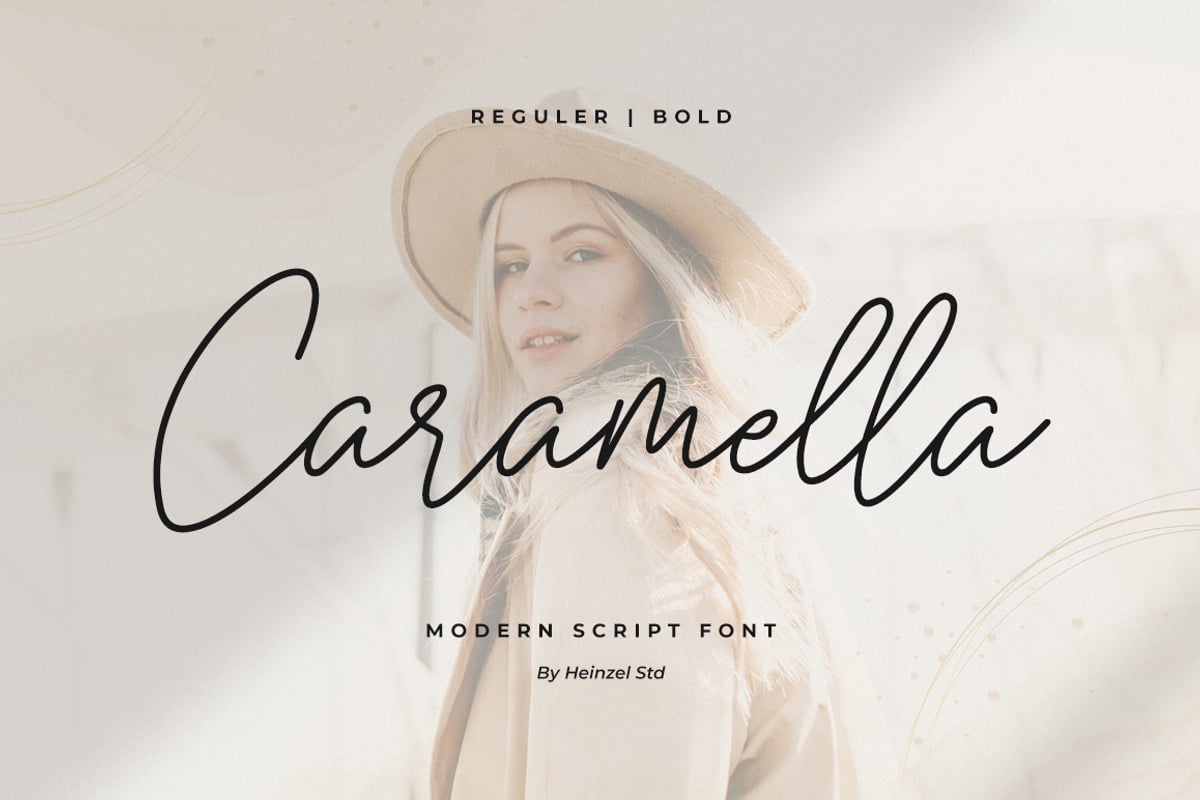
Caramella Modern Script Font
Caramella is the effortlessly elegant modern script font your designs have been waiting for.
With its relaxed, flowing style and timeless charm, Caramella is a truly versatile typeface that adapts beautifully to a wide range of creative projects. Whether you're designing wedding invitations, logos, greeting cards, website headers, or editorial titles, this font delivers sophistication with ease.
- Ligatures and Alternates